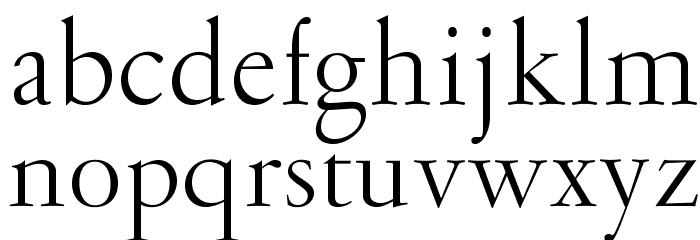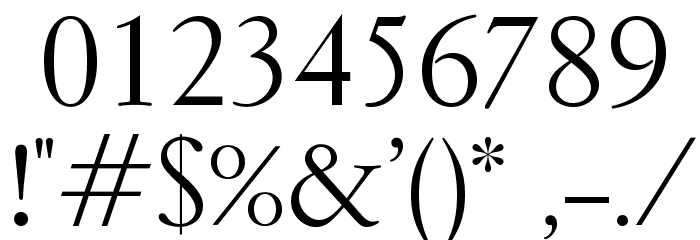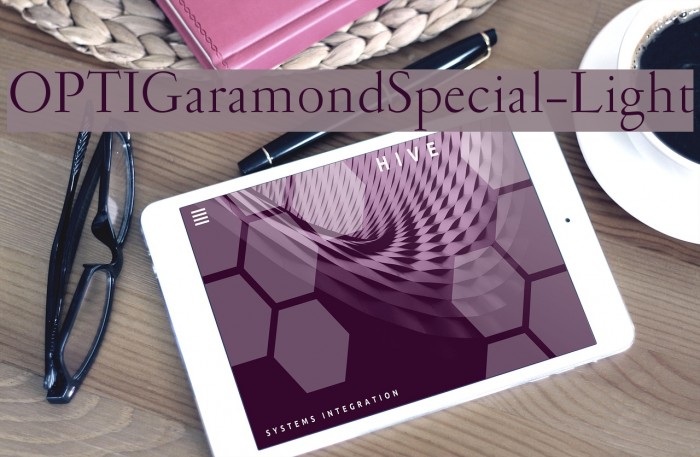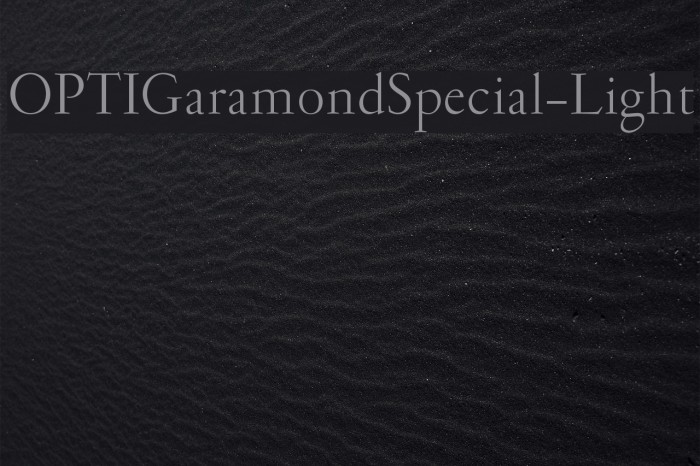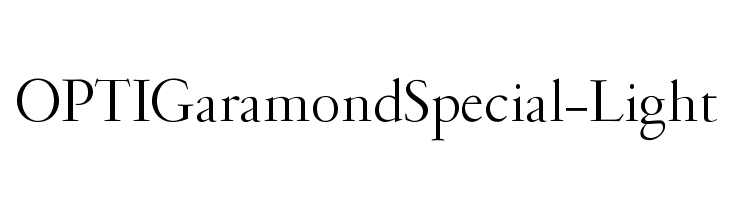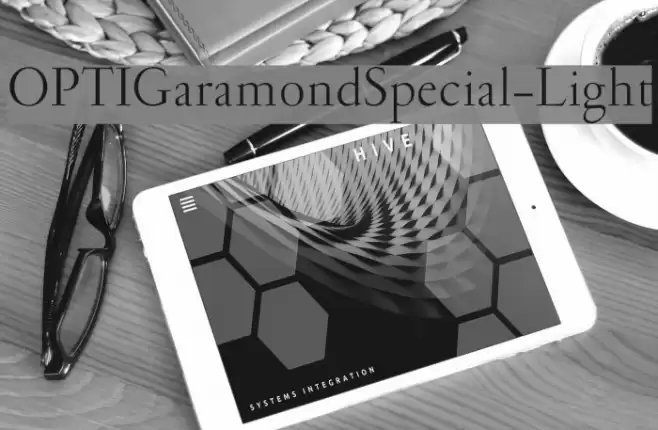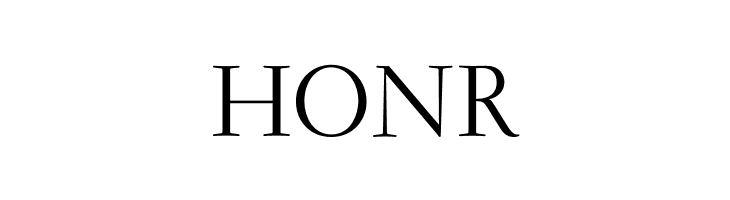
OPTIGaramondSpecial-Light Font
This font exudes a classic elegance with its refined serif design, characterized by its light weight and graceful curves. The uppercase letters are tall and stately, while the lowercase letters maintain a harmonious balance with their slightly rounded forms. The numerals are distinct and clear, ensuring readability. Special characters are thoughtfully designed, complementing the overall aesthetic. The font's subtle contrast in stroke thickness adds to its sophisticated appearance, making it suitable for a variety of formal applications.
A classic serif font with elegant curves and light weight, perfect for formal use.
- Proposed Projects: Ideal for book typesetting, formal invitations, and elegant branding projects.
- Overall Style: Classic